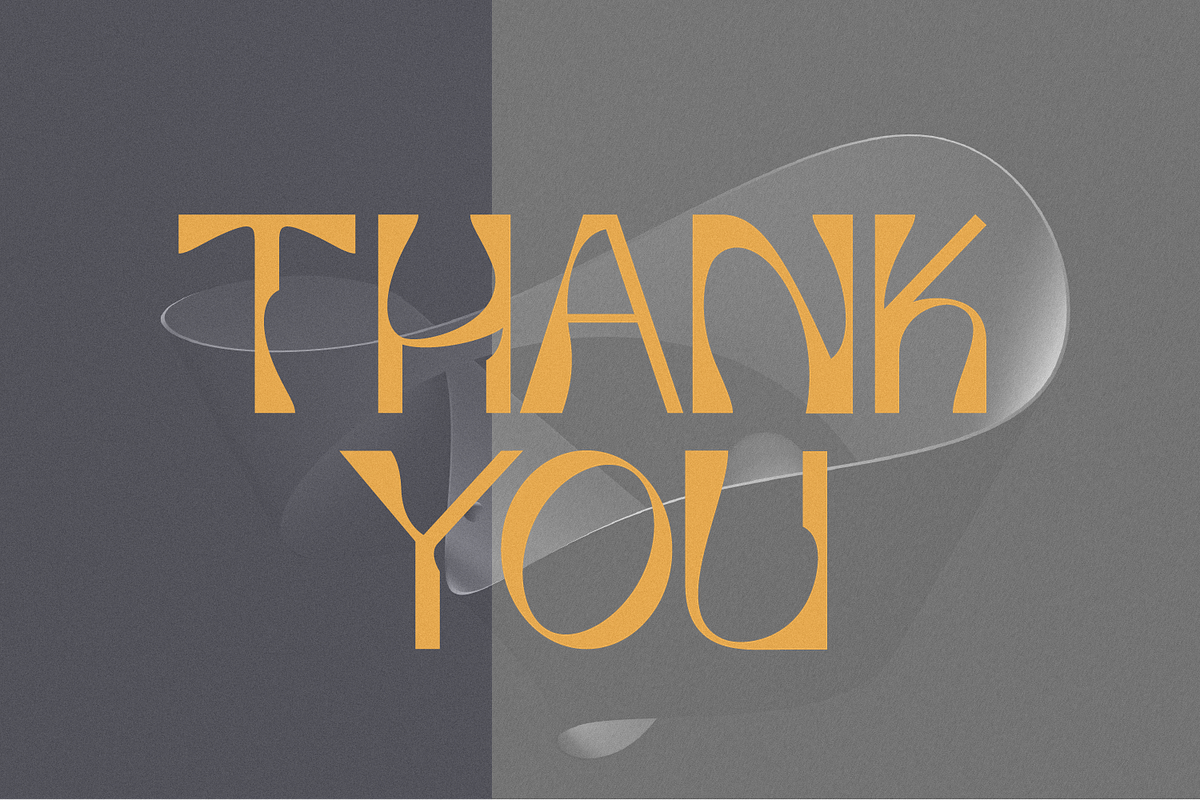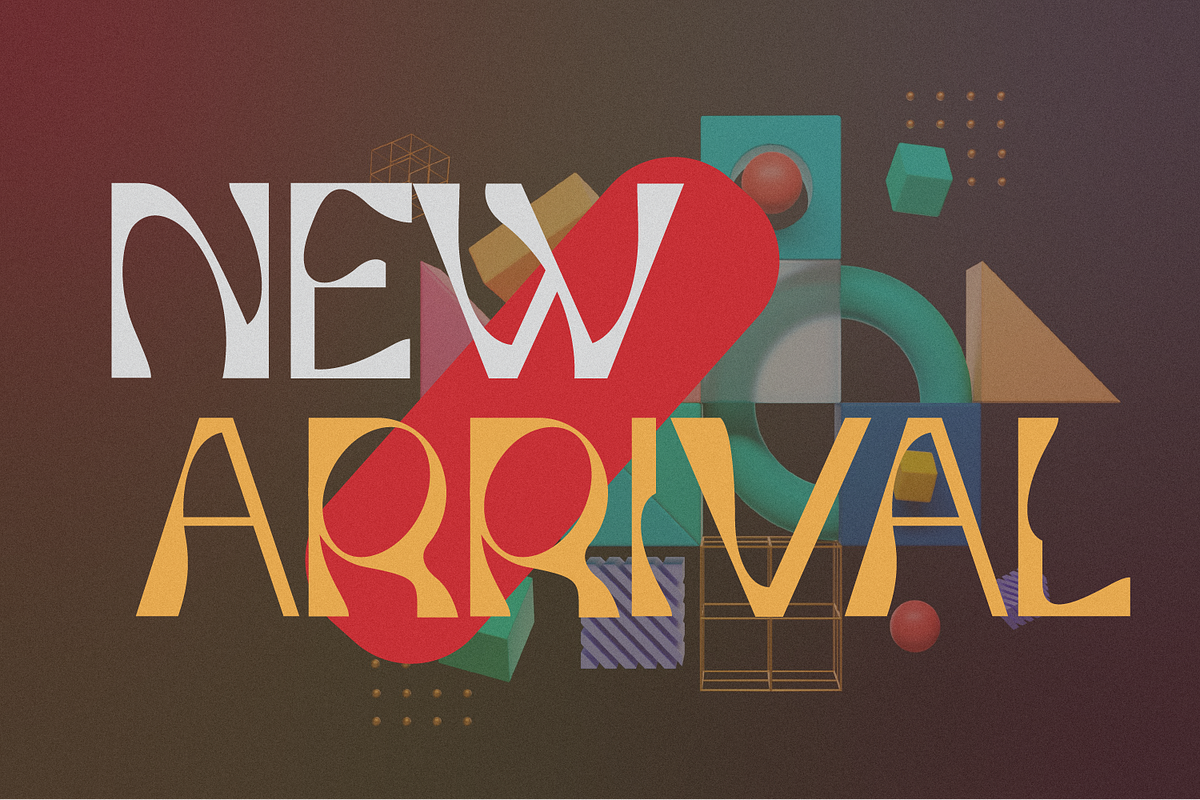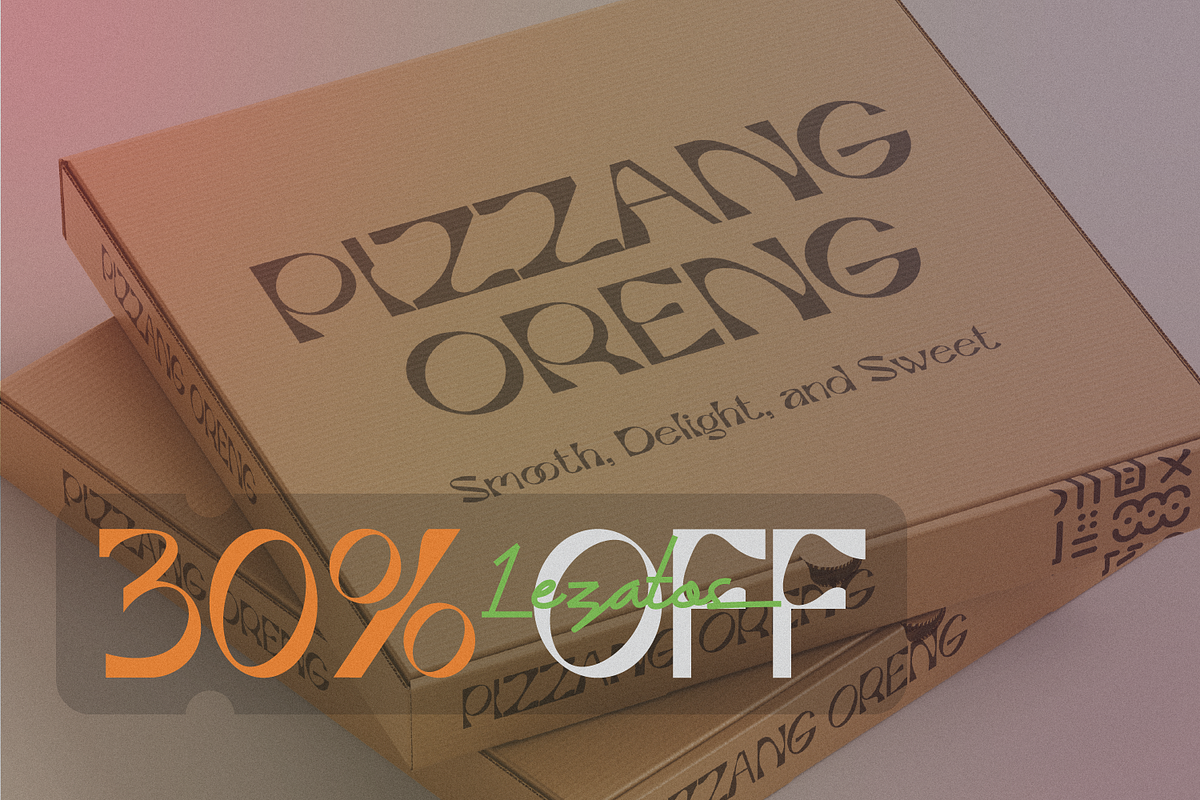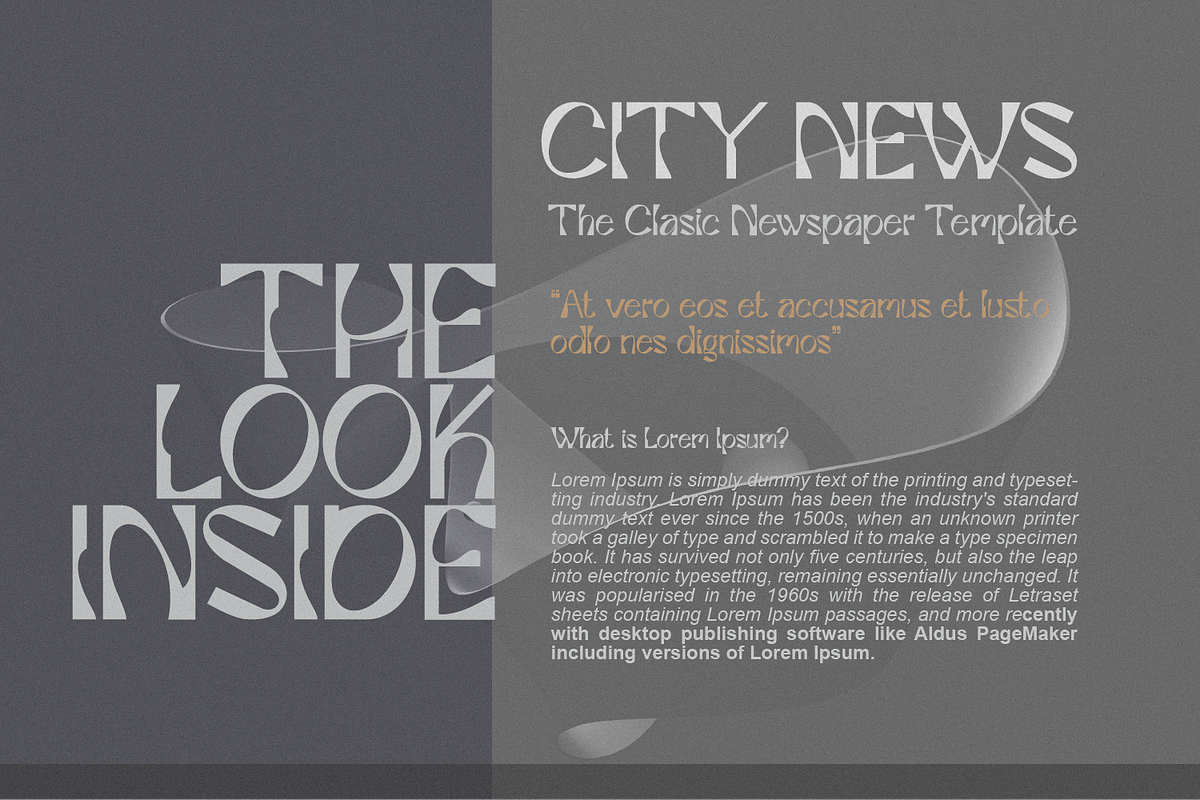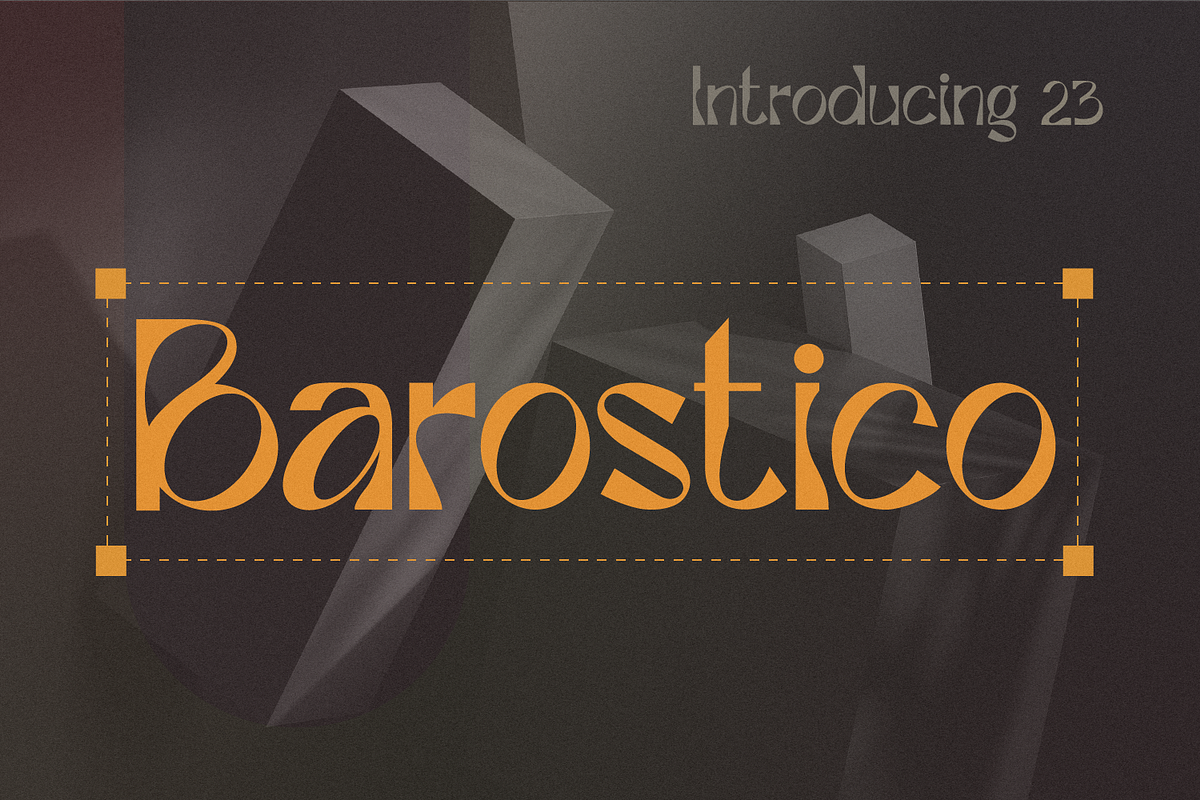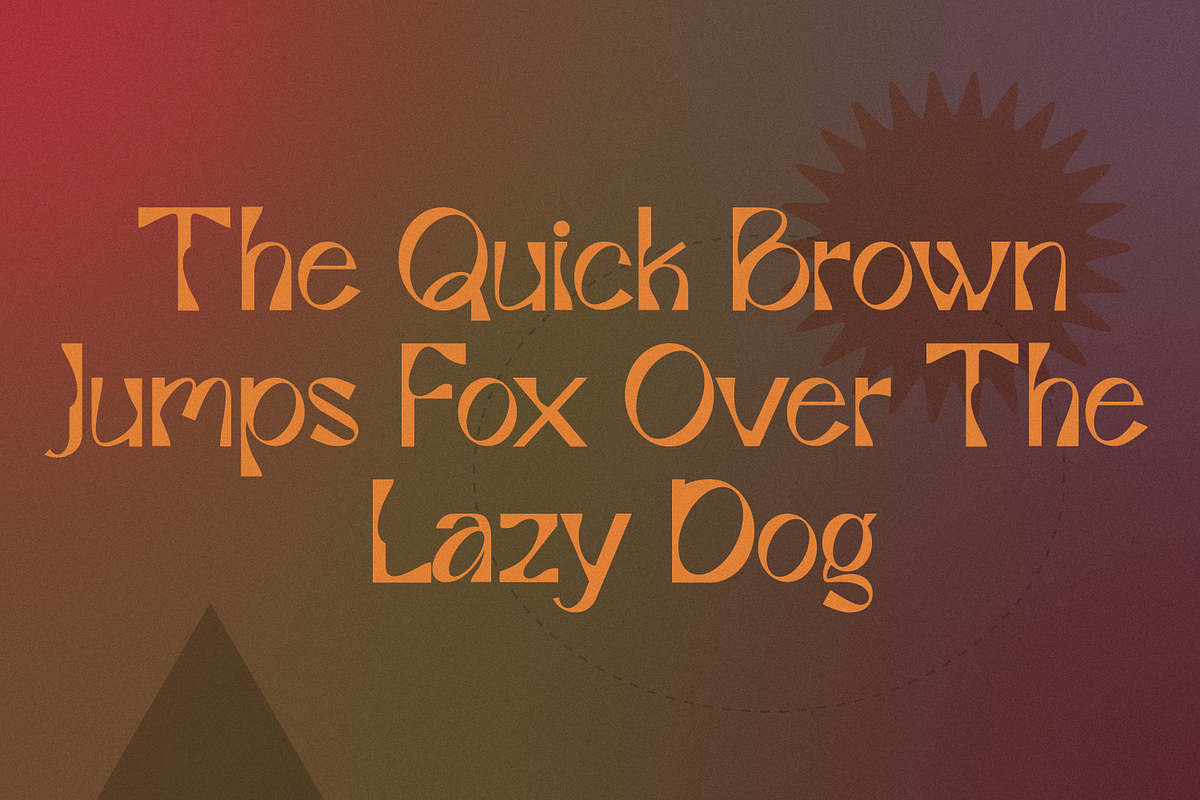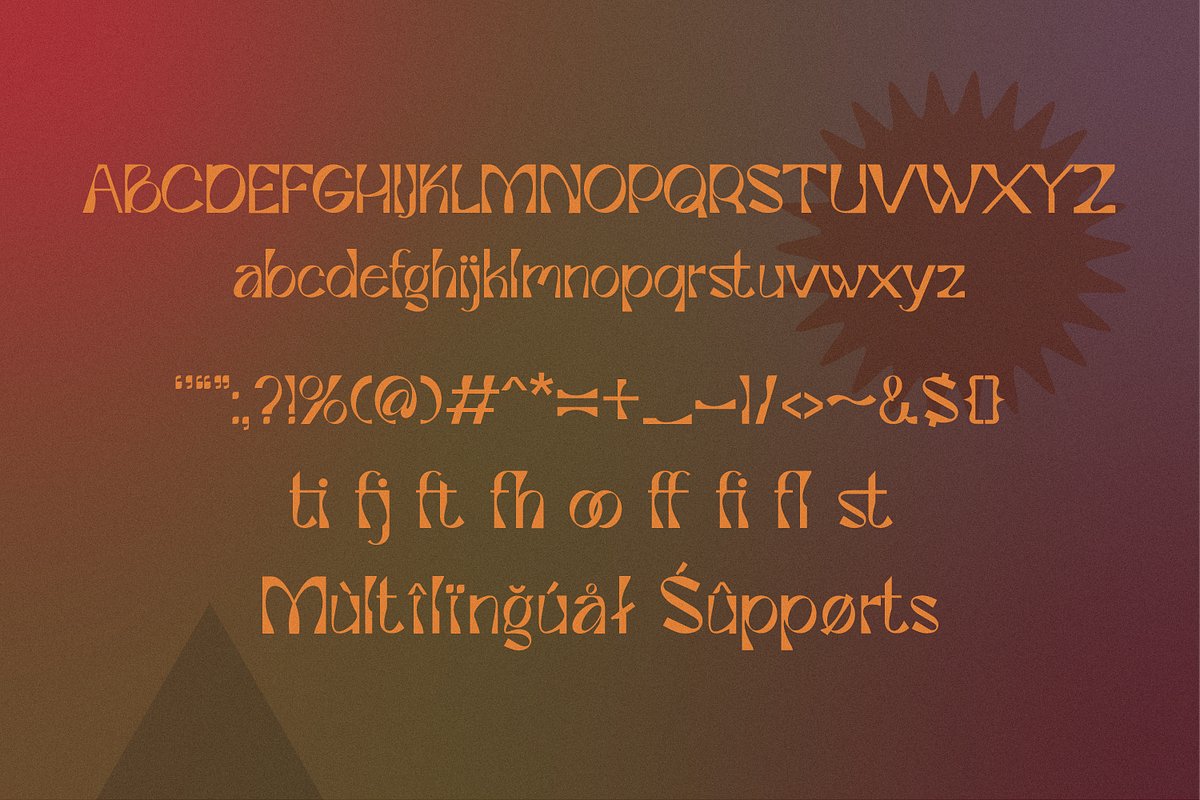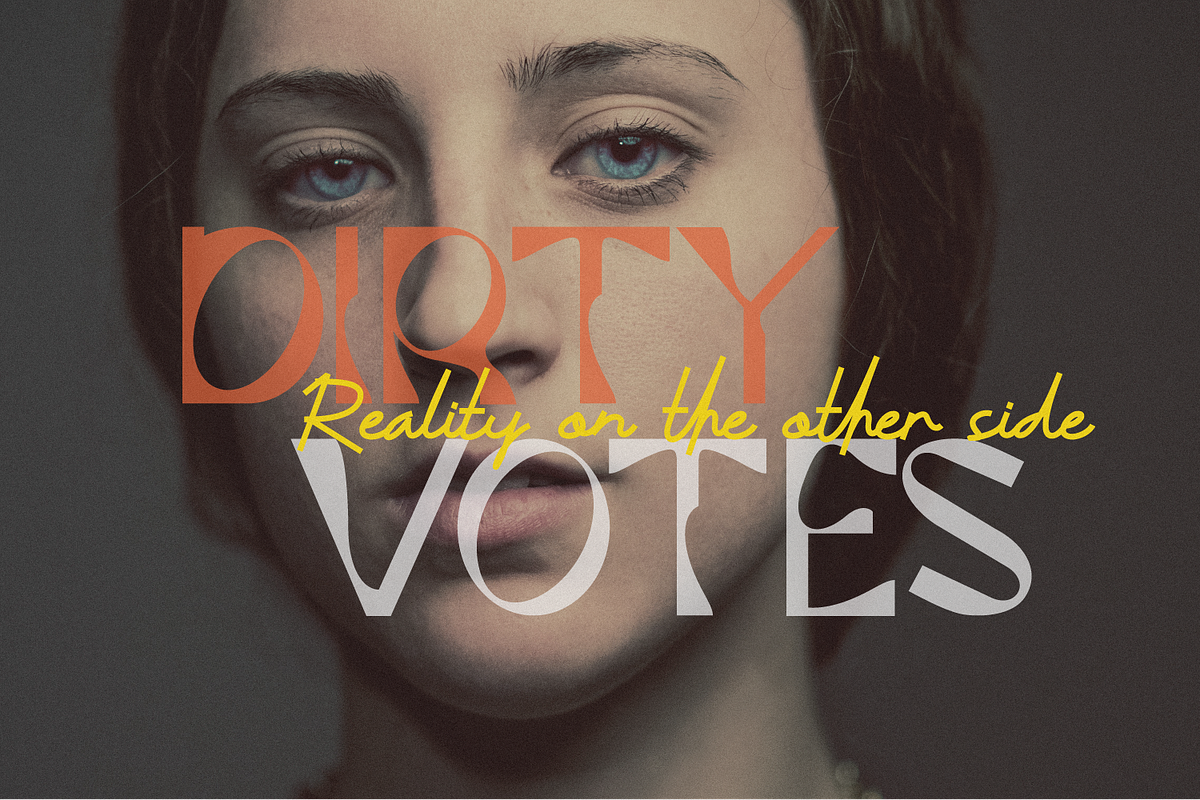
Barostico Display
Crafted with an eye-catching look, the Barostico Display has plenty of boldness and a hint of eccentricity, as well as sophisticated details that can stand up to its enormous size. With a wide range of expressions and styles, it can be used for everything from fashion labels to logotypes, to magazines, product packaging and billboards.